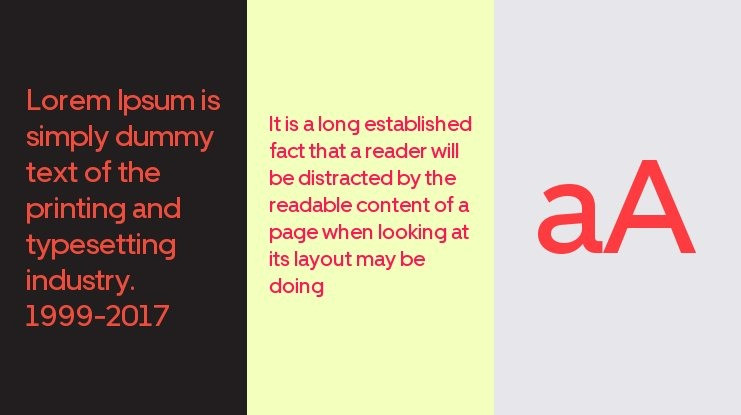
Uber Move Sans Serif Font is inspired by early twentieth century sans serifs like Futura and Neuzeit Grotesk, reimagined through the lens of transportation fonts from around the world. The fonts were produced in 4 weights and 2 optical sizes: Display is tracked tightly and is geometric in construction, and Text is spaced more generously and is slightly condensed.
Uber Move Font